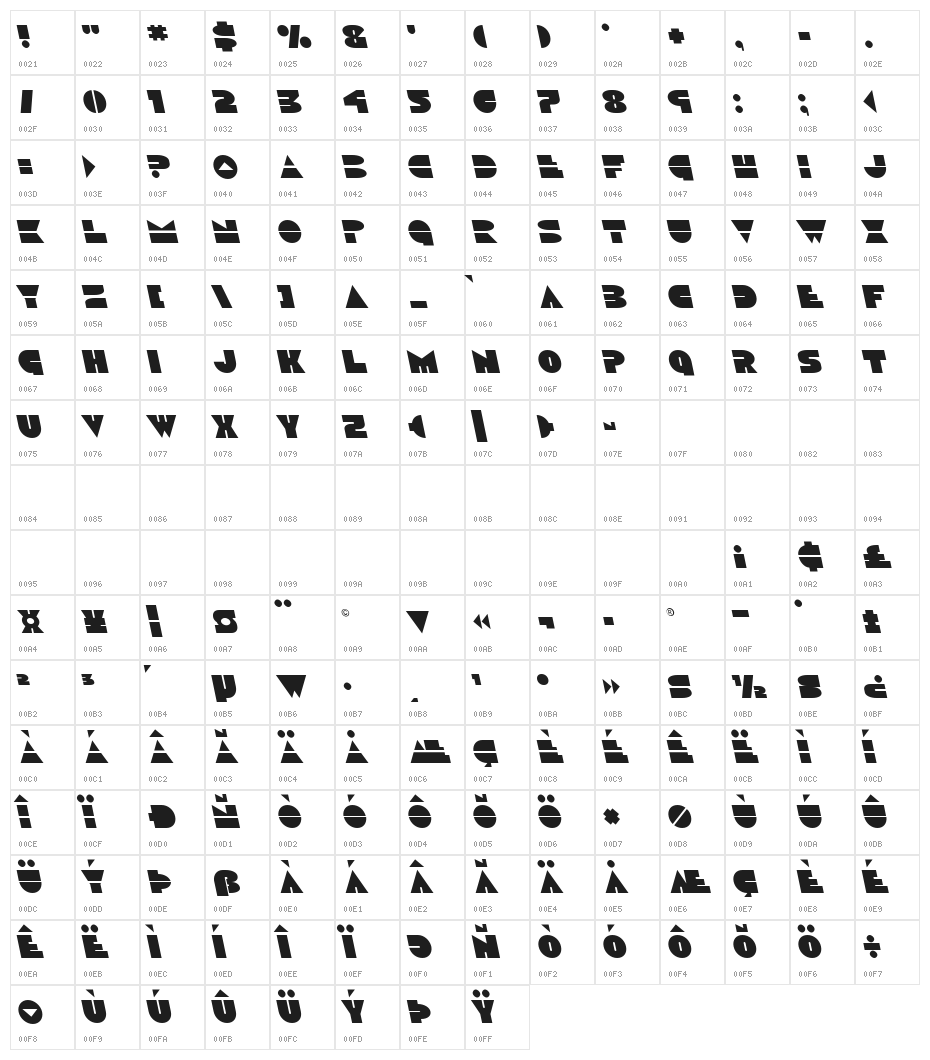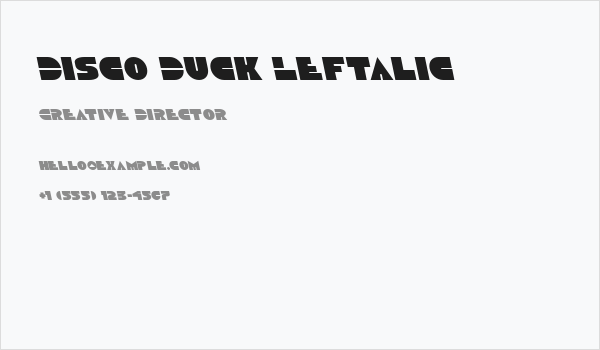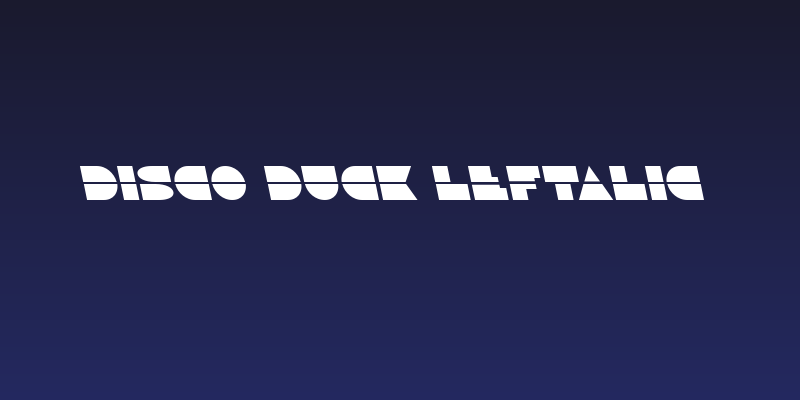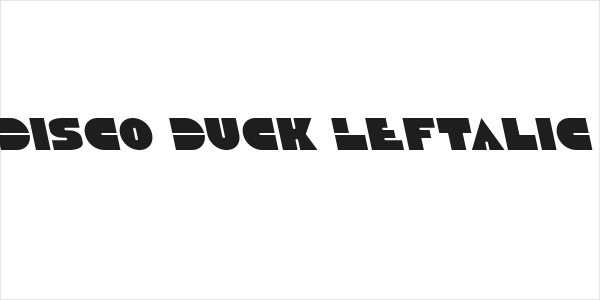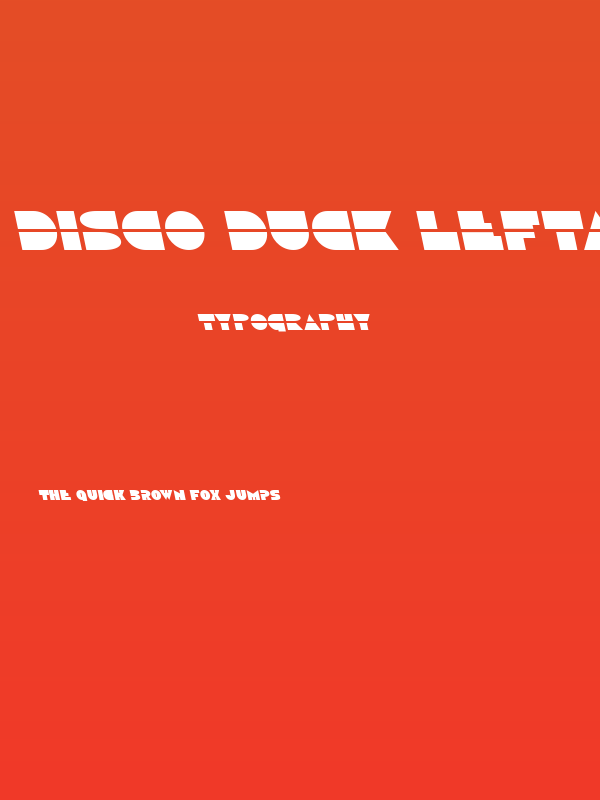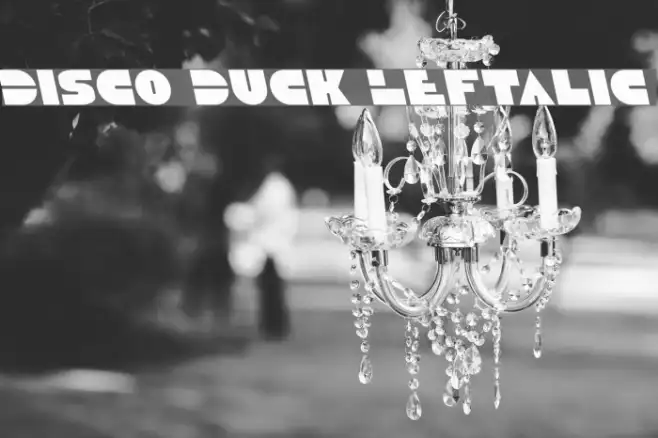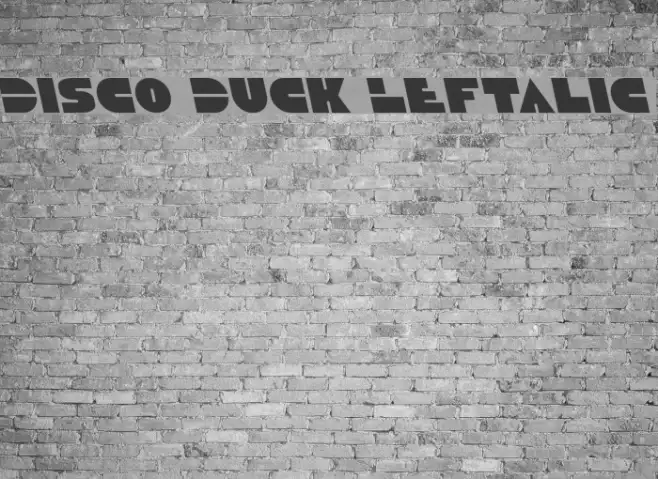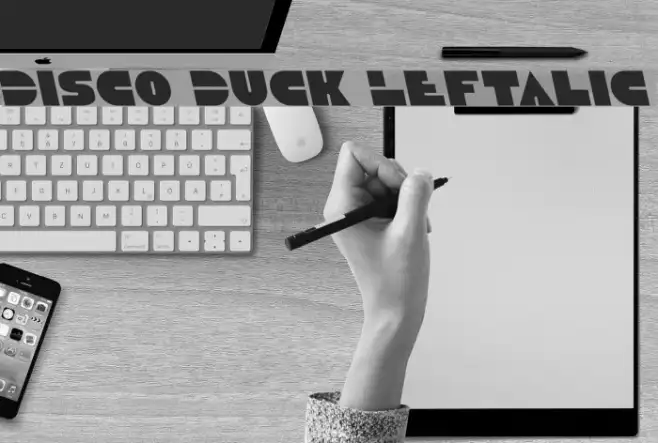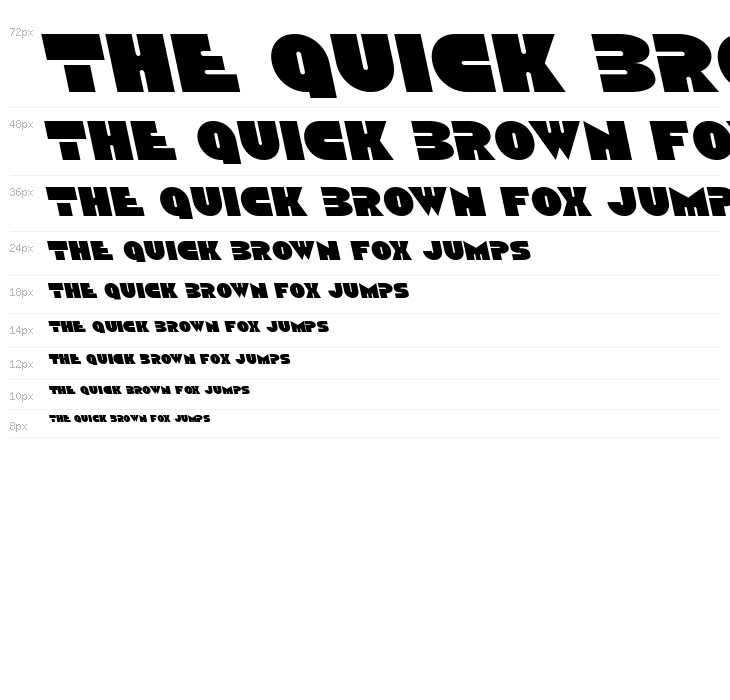
Disco Duck Leftalic Font
Disco Duck Leftalic Description
This font features a bold, geometric style with a playful and dynamic appearance. The characters are constructed with sharp angles and a blocky form, giving it a distinct, modern look. The uppercase and lowercase letters maintain a consistent width, while the numbers and special characters follow the same bold and angular design. The font's unique style is reminiscent of retro and futuristic themes, making it stand out in any design project.
| Proposed Projects | Ideal for retro-themed posters, futuristic branding, album covers, and eye-catching headlines. |